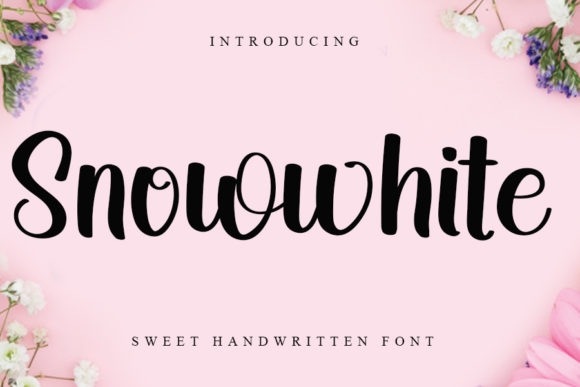
Unleash the Enchanting Charm of Snowwhite Font: A Masterpiece of Elegance and Sophistication
In a world saturated with digital noise, it's the subtle details that truly captivate and leave a lasting impression. Meet Snowwhite Font, a script font that embodies grace, refinement, and timeless allure. This exquisite creation from FreshTypeINK is not just a font; it's an artistic expression that breathes life into your designs.
Immerse yourself in the world of Snowwhite Font, where each letter dances across the page with effortless elegance. Its delicate strokes evoke a sense of romance and nostalgia, while its carefully crafted curves exude a touch of sophistication. Whether you're designing wedding invitations, branding materials, or social media graphics, Snowwhite Font adds an undeniable touch of refinement.
Beyond its aesthetic beauty, Snowwhite Font is a versatile performer that adapts seamlessly to a wide range of projects. Its flowing script style adds a personal touch to logos, letterheads, and business cards, creating a lasting impression that sets you apart from the crowd. Unleash your creativity and let Snowwhite Font transform your designs into works of art.
Step into the spotlight with Snowwhite Font, the ultimate choice for those seeking to make a statement. Its enchanting charm will captivate your audience, leaving them spellbound by your designs. Experience the magic of Snowwhite Font today and elevate your creative projects to new heights.